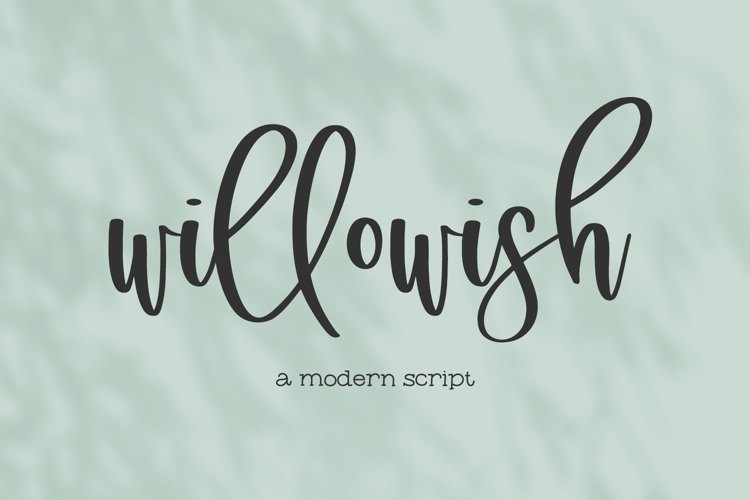
Willowish Script
Introducing Willowish, a handlettered modern calligraphy font with alternates & ligatures. Willowish features clean lines & exaggerated ascenders for visual impact.
Willowish is best for:
- feminine, crafty projects with your Cricut or Silhouette machine, or your SVG design business
- whimsical farmhouse decor and crafts
- website design + website accents, blog design
- feminine graphic tee shirt design & other apparel
Willowish includes:
- 28 alternate characters
- 24 ligatures - am, an, ar, bb, dd, em, en, er, ff, im, in, ir, ll, mm, nn, om, on, oo, or, pp, rr, ss, tt, ur